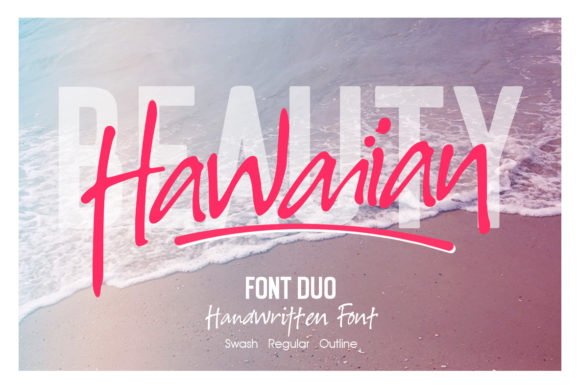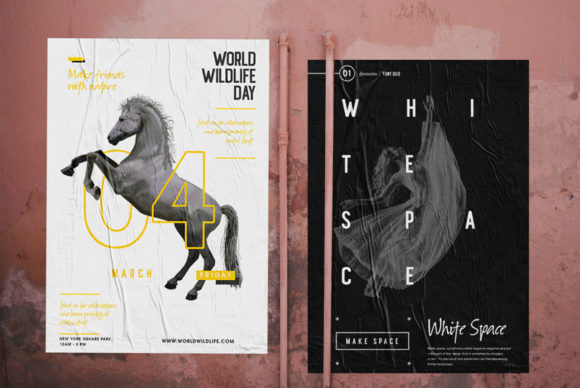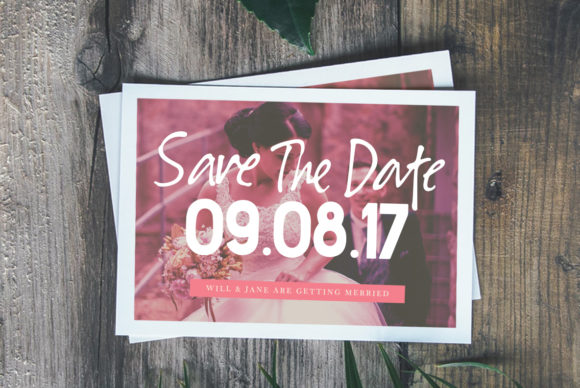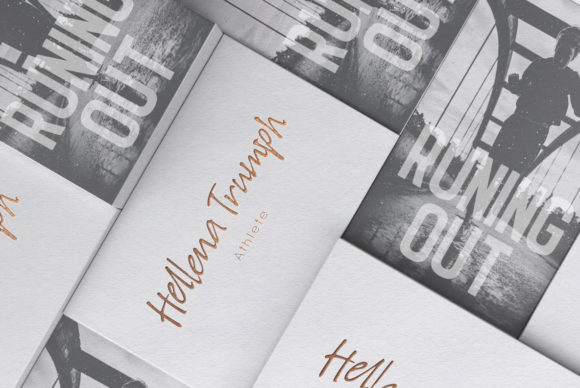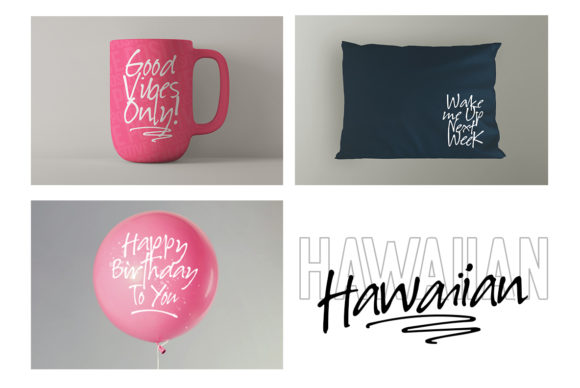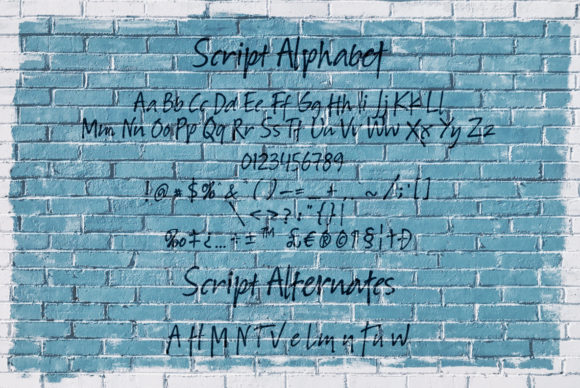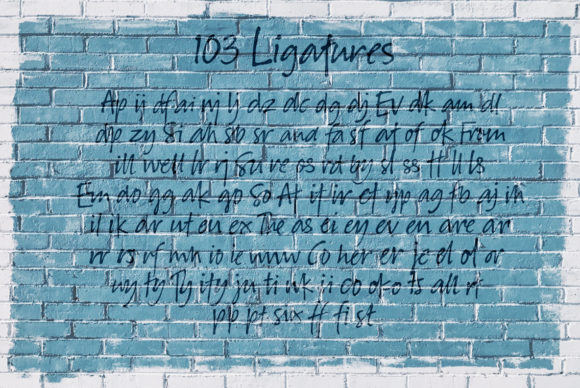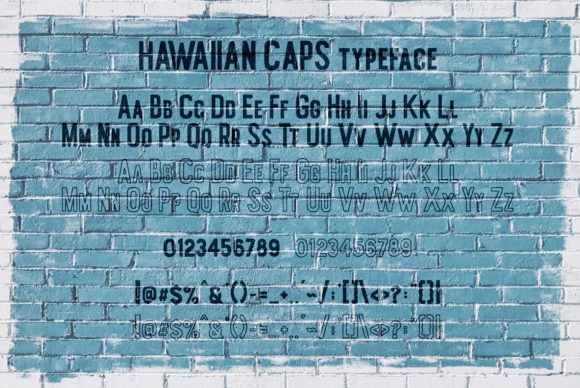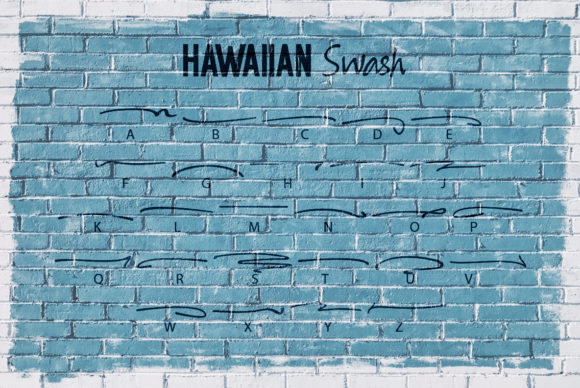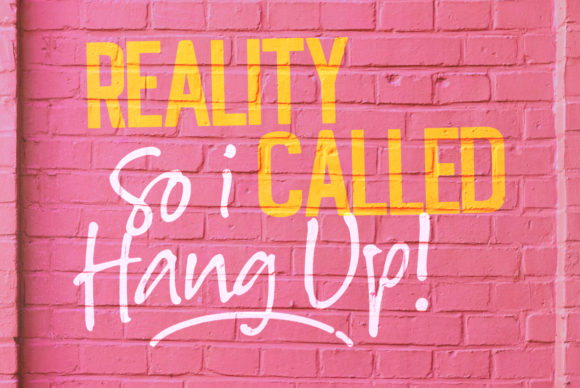
Hawaiian Duo Font
About Hawaiian Duo Font
The Hawaiian is an amazing font duo. It includes a striking version, and a messy, yet charming and natural version. Both style can be combined perfectly to create an unique design in an instant.